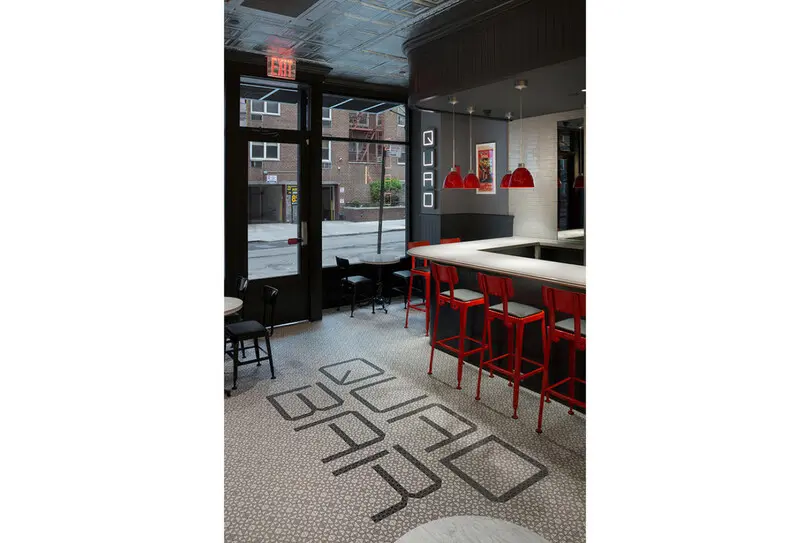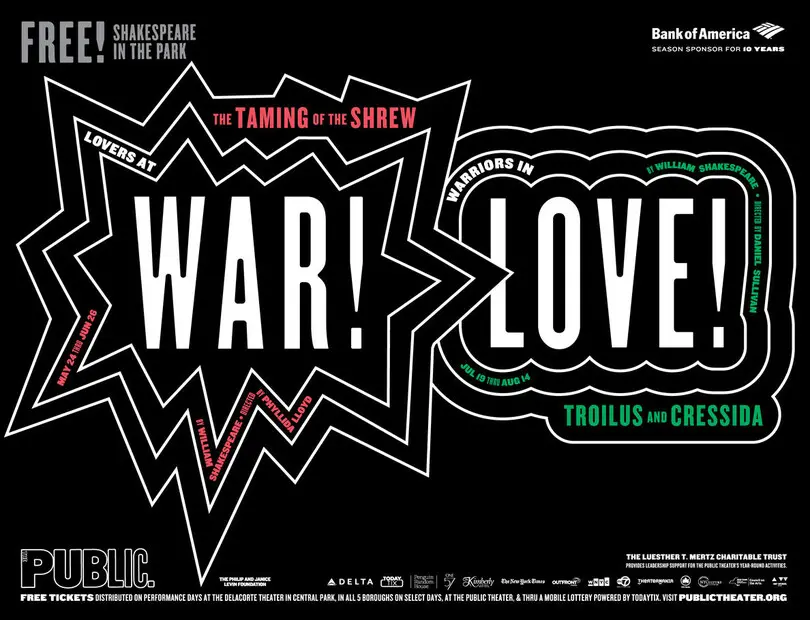
Type Mixtape: Paula Scher.
「 Scher has picked up an armful of design industry awards, taught countless numbers of eager students at some of the most well-respected design schools out there, and became the first female principal at Pentagram 」
Paula Scher
Paula Scher has been making and breaking rules in the world of graphic design for the last four decades. She’s collaborated with some of the world’s most influential companies – think Windows, Bloomberg and Coca Cola – but also played a key role in the music industry, at one point turning out 150 record sleeves a year. This feature is extracted from The Recorder Issue 5 and highlights ten of her favourite typographic projects from her career.
Known for her illustrative use of type, Scher has picked up an armful of design industry awards, taught countless numbers of eager students at some of the most well-respected design schools out there, and became the first female principal at Pentagram, where she’s been working since 1991.
In honour of her many achievements, we invited her to put together a slightly different Type Mixtape than usual, celebrating her contribution to design by looking back at some of her favourite projects to date. Scher spent five years between 1979 and 1984 working independently, during which time she worked extensively on alternate typographic vocabularies within her work, before joining former classmate Terry Koppel in founding Koppel & Scher. Her work there, including the iconic Swatch poster, re-affirmed her name and talent so that when Koppel dissolved their partnership in 1991, Paula Scher went on to become a partner at the New York office of Pentagram, the world’s biggest design partnership.
Scher’s work has included corporate identity and branding for major Wall Street clients including Citibank, Coca Cola and Bausch + Lomb, but it is for her work in the arts that she has become most recognised. Her cultural clients read like a “who’s who” of the American theatre and arts scene, with the Museum of Modern Art, New York Ballet, Metropolitan Opera and New York Philharmonic among them. Here she chooses ten favourite typographic projects from her career.
National Theatre
National Theatre poster, 2013.
“I enjoy this simple construction of boxes. The font was created for this project.”
Several designers created limited edition posters for London’s The National Theatre’s 50th anniversary – including David Carson and Graphic Thought Facility – with Scher’s blocky design perhaps a reference the architecture of the building itself.
Bloomberg Signage
Bloomberg Signage, environmental graphics and media installations, 2005
“Bloomberg represents my favourite use of type in space and with different materials (Avenir was Bloomberg’s corporate font).”
Scher designed wayfinding for Bloomberg’s New York headquarters, developing new font Bloomberg which merged Avenir’s letters with the numbers of Avant Garde. Floors were marked with colour-coded numbers, and giant scrolling news and data screens showcased information from the company’s own live feeds.
Bring In Da Noise
Bring In Da Noise, Bring in Da Funk poster for The Public Theater, 1995.
“This version of the poster best represents the spirit of the musical and is emblematic of my work for the Public Theater in the 90s. It uses American Woodtype from the Morgan foundry.”
Included in MoMA’s collection, Scher’s Bring In Da Noise, Bring In Da Funk posters were created in 1995 for an original off-Broadway production, and are among the designer’s best known work – particularly for their ‘noisy’ use of typography.
Quad Cinema
Quad Cinema identity, 2017.
“My favourite signage for theatre, using bespoke type created for the Quad Cinema.”
To mark the reopening of New York’s Quad Cinema, Scher created a “stark, modern logo” – as AdWeek described it – alongside signage, graphics and installations all informed by cinema’s visual language.
War/Love Poster
War/Love Poster, The Public Theater 2016-17 season campaign, 2016.
“The 2016 Public Theater poster continues the series of wood type based communication (Knock Out).”
Scher created this poster as part of a campaign for New York’s 2016 Shakespeare in the Park series, presented by the Public Theater. The designer has been creating posters for the series since 1994.
Rockaway Beach
Rockaway Beach/NYC Beaches environmental graphics, 2001.
“Created for the boardwalk, Rockaway Wide is the largest pixel in the history of type.”
Tackling New York’s beachfronts, Scher created a hybrid landmark and sign system, as well as giant boardwalk graphics with 50-foot tall letters spelling out Rockaway – only seen in full by jets flying overhead.
The New School identity, 2015
The New School identity, 2015.
“Three widths of a font – Irma – programmed for the New School and renamed Neue.”
Pentagram’s 2015 rebrand of The New School relied on an algorithmicall generated typeface, which offered up what Fast Co Design called a “wild variety of permutations”.
New Jersey Performing Arts Center
New Jersey Performing Arts Center environmental graphics, 2001.
Poster exhibition honouring the centenary of Henri de Toulouse
Poster exhibition honouring the centenary of Henri de Toulouse-Lautrec’s death, 2001.
“Avril font made from Miehle.”
Created as part of an exhibition marking the artist’s 100th anniversary, Scher’s typographic poster offered a new take on Toulouse-Lautrec’s well-known Jane Avril can-can dancer.